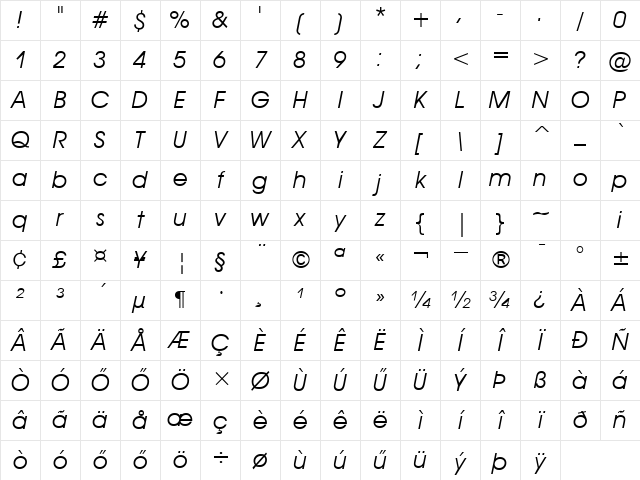
H_Avant Garde Book BT Oblique
H_Avant Garde Book BT Oblique Family
Complete H_Avant Garde Book BT Oblique glyph index. Displaying only characters natively supported by H_Avant Garde Book BT Oblique font.
Design Context for H_Avant Garde Book BT
H_Avant Garde Book BT is a composed and adaptable typeface that performs quietly and consistently across a wide range of design contexts. The slanted form adds forward momentum and visual energy.
Pro Tip: Use H_Avant Garde Book BT for emphasis, pull quotes, and subheadings where its slanted energy can add rhythm to the layout.